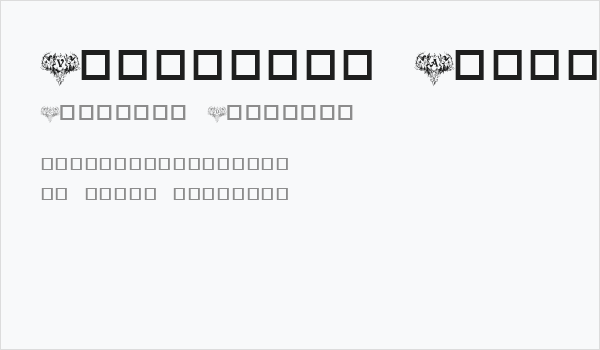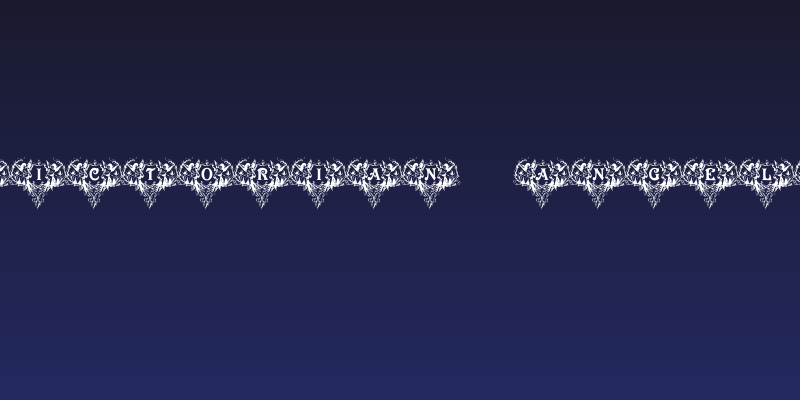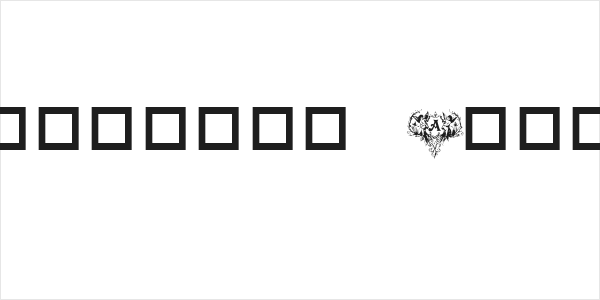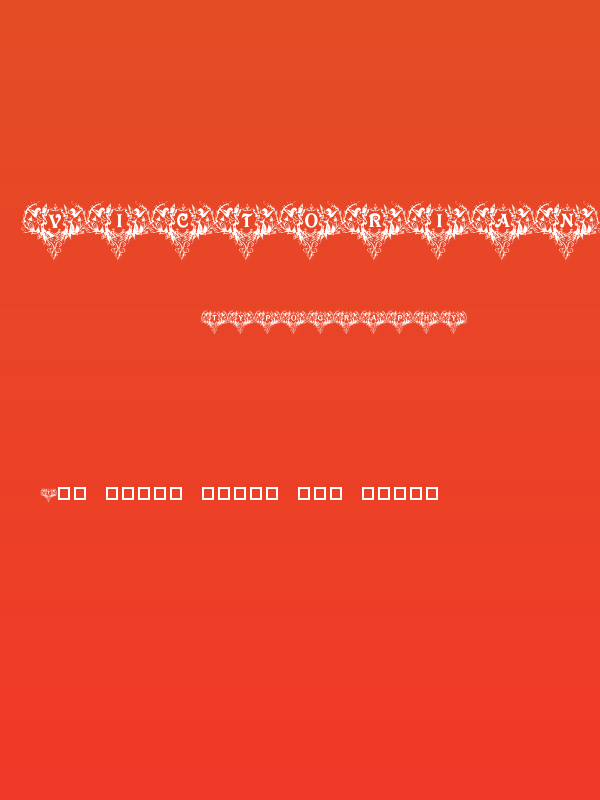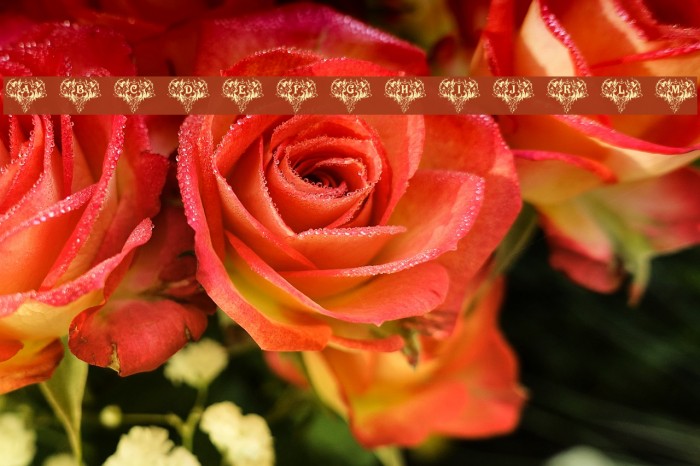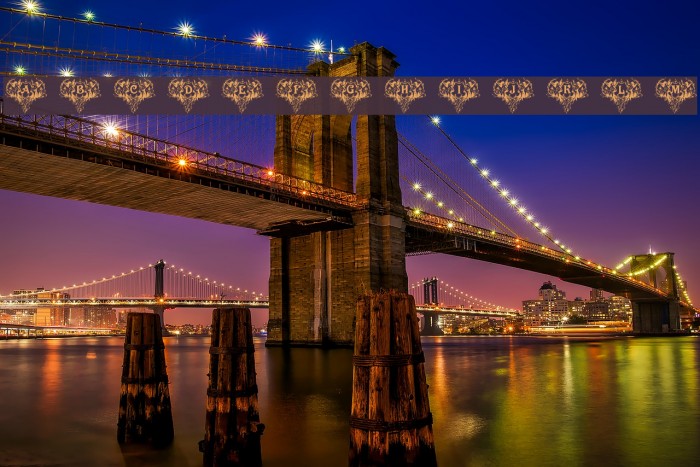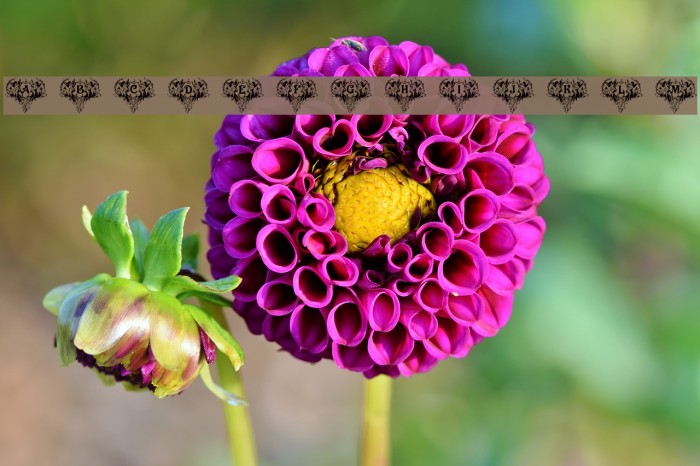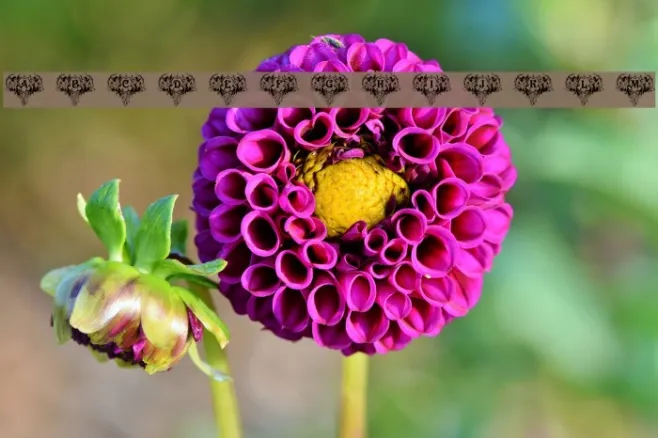
Victorian Angels Font
Victorian Angels Description
This font features an intricate, decorative style reminiscent of Victorian-era design, with elaborate flourishes and ornate detailing. Each character is surrounded by intricate patterns, giving it a unique, artistic appearance. The font is highly decorative, making it suitable for projects that require a touch of elegance and sophistication. The characters are not easily legible at smaller sizes due to their complex design, which includes numerous embellishments and flourishes. This font is best used in larger sizes where the details can be appreciated. The overall style is vintage and decorative, capturing the essence of a bygone era with its elaborate and artistic flair.
| Overall Style | Vintage, Decorative |
| Use Case | Headlines, Decorative text |
| Proposed Projects | Ideal for wedding invitations, vintage-themed posters, and decorative headings. |